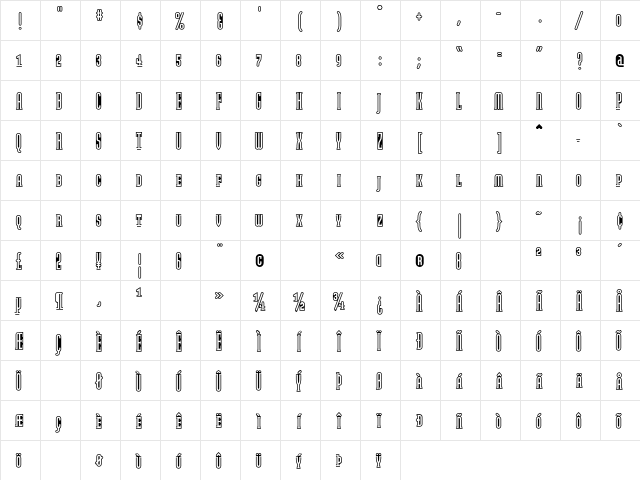
ModulaOutlinedSmallCaps Outlined Small Caps
Design Context for ModulaOutlinedSmallCaps Typeface
ModulaOutlinedSmallCaps brings ornamental detail and strong personality to headlines and identities, where visual impact matters more than quiet functionality.
Font Pairing: Pair with a clean neutral sans-serif for body copy to let ModulaOutlinedSmallCaps's character lead without overwhelming the composition.
Pro Tip: Treat ModulaOutlinedSmallCaps as the centrepiece of your typographic hierarchy. One strong heading set in a decorative face can carry an entire layout.